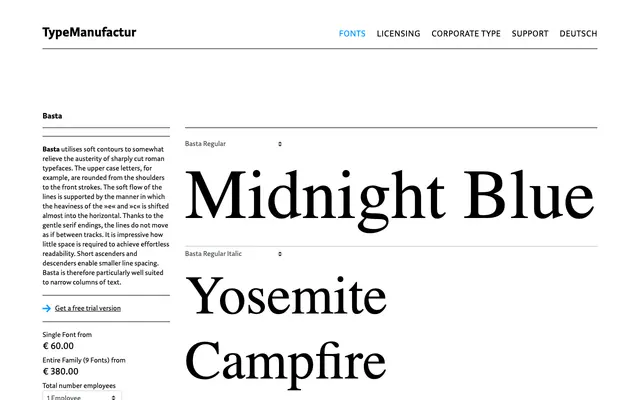
A text serif from Typemanufactur offered in four weights with italics and small caps across nine styles.
Basta runs from Light to Black with accompanying italics at Light, Regular and Bold weights, plus dedicated small caps variants for those three. The range of nine styles makes it well suited to book and editorial work where typographic hierarchy and long-form readability matter. The literary specimen text choices suggest a typeface positioned for serious prose contexts.
The presence of small caps, italics, and a range from Light to Black with classic weight distribution suggests a text-oriented transitional or humanist serif intended for extended reading.